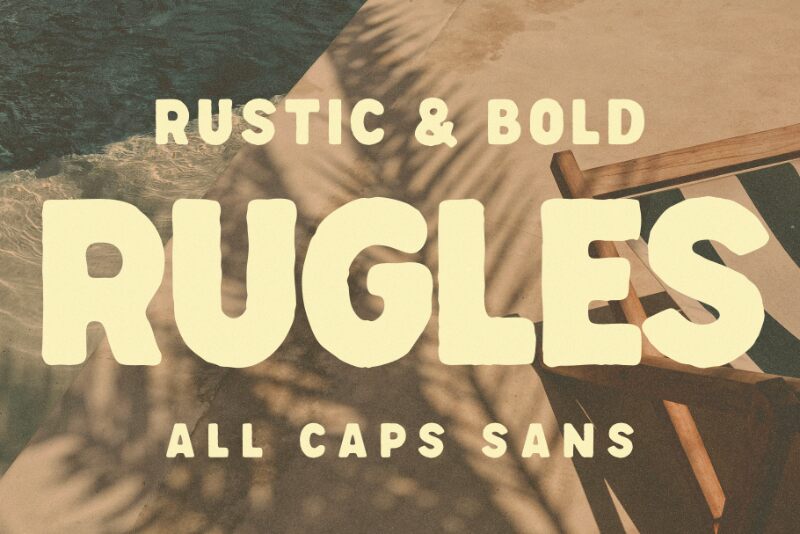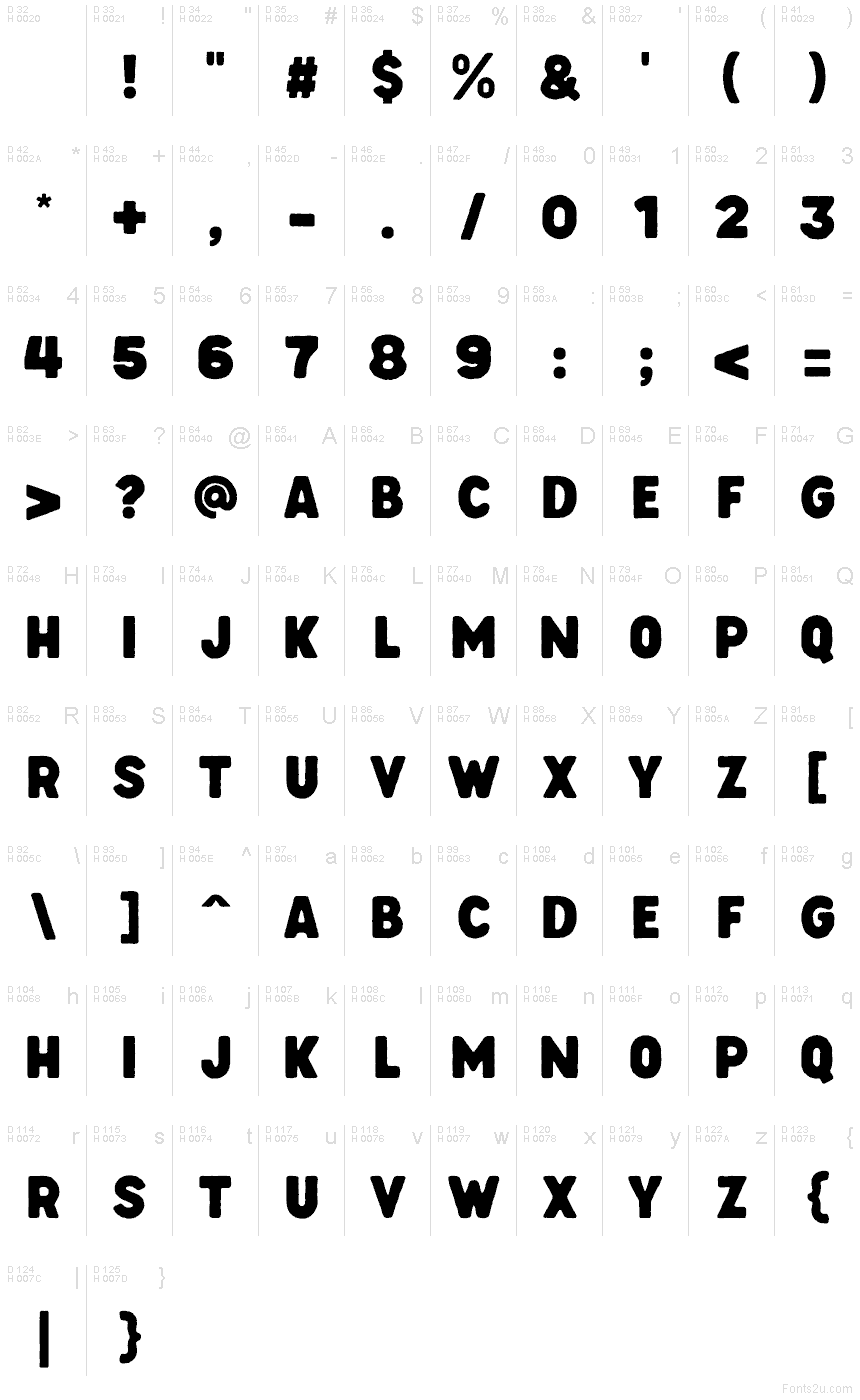
Rugles DEMO
Rugles font by Floves Type is a free eroded display typeface that hits that sweet spot between bold and beat-up. Its chunky, almost sponge-printed letters look like they’ve been stamped, scraped, and dragged across rough paper, giving every word a lived-in, handmade edge. The forms stay sturdy and legible, so you get all the grit and noise without losing the message.
Using Rugles, headlines feel loud, physical, and slightly unhinged—in the best way. This free font works beautifully for gig posters, album covers, streetwear branding, skate zines, bold social graphics, and craft beverage labels. Set it big, keep the copy short, and pair Rugles with a clean, neutral sans serif for smaller text to let the rugged texture really punch through.
RUGLES delivers high-impact branding and visual appeal across multiple
primary markets by combining bold letterforms with a raw, rough stroke.
Perfect for streetwear labels, event posters, and artisanal product lines,
RUGLES merges industrial toughness with a modern rebellious
aesthetic—a fusion that reinforces brand authenticity and commands
a visually compelling presence.
Whether you’re crafting a striking
headline or elevating product packaging, RUGLES delivers unmistakable
style that resonates with contemporary audiences, setting your brand
apart with confidence and flair.
Bold, Rough Forms
Standout Legibility
Urban Edge & Versatility
High-Impact Branding
Rebellious Aesthetic